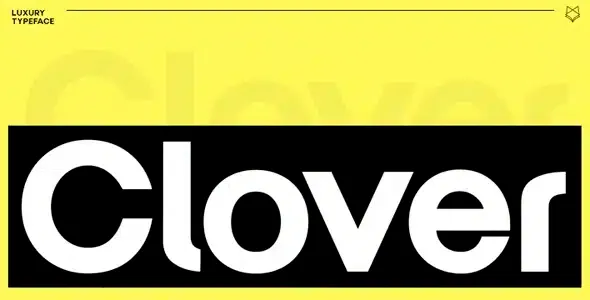
Clover Display Premium Font by FoxType
Clover Display Premium Font by FoxType is a unique, modern and elegant typeface with web fonts derived from the Olive font family. It is a very versatile font that works great in both large and small sizes. Clover Font would be perfect for branding, logos, headlines, subtitles. or simply as a stylish text overlay to any background image.
Clover Display Premium Font by FoxType
Clover Display Premium Font by FoxType is a unique, modern and elegant typeface with web fonts derived from the Olive font family. It is a very versatile font that works great in both large and small sizes. Clover Font would be perfect for branding, logos, headlines, subtitles. or simply as a stylish text overlay to any background image.